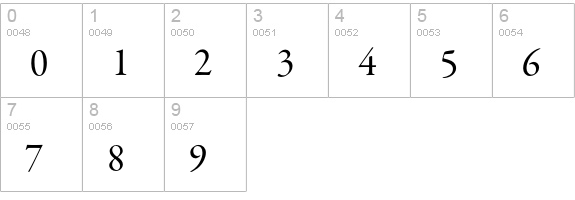
Garamond Premier Pro Subhead Font Details
Garamond Premier Pro Subhead font is a timeless and elegant typeface that exudes sophistication and class. With its delicate serifs and graceful letterforms, this font is perfect for adding a touch of refinement to any design project. The Garamond Premier Pro Subhead font strikes the perfect balance between traditional and contemporary, making it versatile for a wide range of applications. And the best part? This exquisite font is available for free download at FontsMarket.com. Whether you're working on a print design, website, or any other creative project, Garamond Premier Pro Subhead font is sure to elevate your work to the next level. Don't miss out on the opportunity to add this stunning font to your collection - download it for free today at FontsMarket.com!